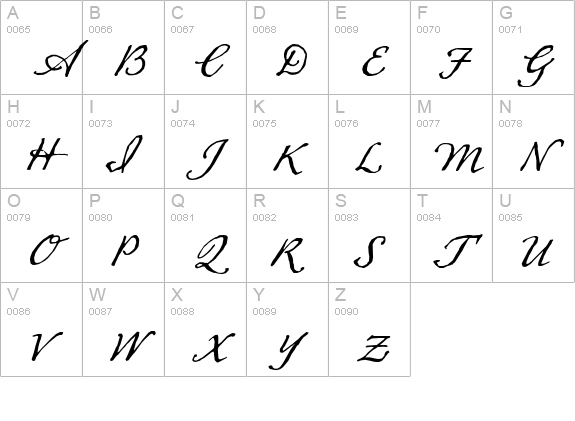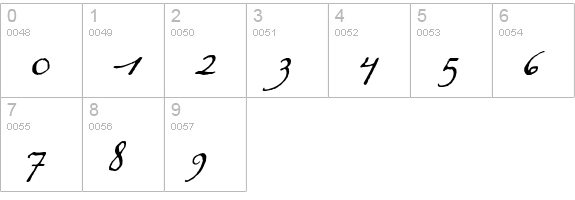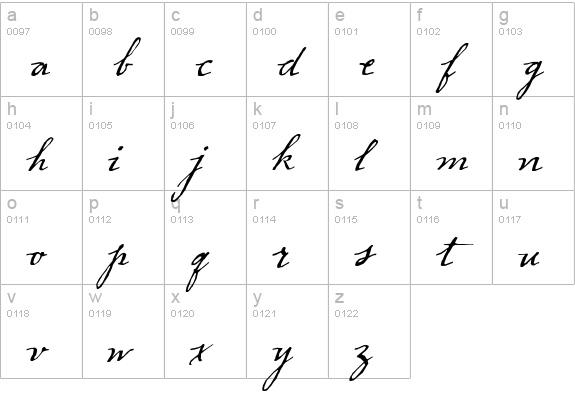
Dear Sarah Alt Two Font Details
Dear Sarah Alt Two font is a beautiful and elegant script typeface that exudes sophistication and charm. With its delicate curves and stylish flourishes, this font is perfect for adding a touch of class to any design project. Whether you're creating wedding invitations, branding materials, or social media graphics, Dear Sarah Alt Two font will elevate your work to the next level. The best part about Dear Sarah Alt Two font is that it is available for free download at FontsMarket.com. This means that you can enjoy the beauty and versatility of this font without any cost. So why wait? Download Dear Sarah Alt Two font today and start creating stunning designs that will leave a lasting impression.